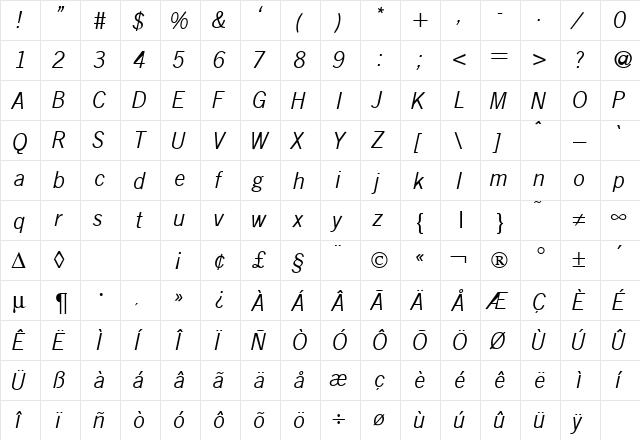
NewsGothicTwo RegularItalic
Design Context for NewsGothicTwo Typeface
NewsGothicTwo has the quiet confidence of well-executed sans-serif typography: versatile, unobtrusive, and dependable at any size. The dynamic lean of this cut emphasises speed and emphasis in any layout.
Font Pairing: Works well alongside a characterful serif or display font that can carry the expressive load while NewsGothicTwo handles the functional copy.
Pro Tip: Use NewsGothicTwo for UI labels, navigation, and short-form body copy where clean legibility is the priority.